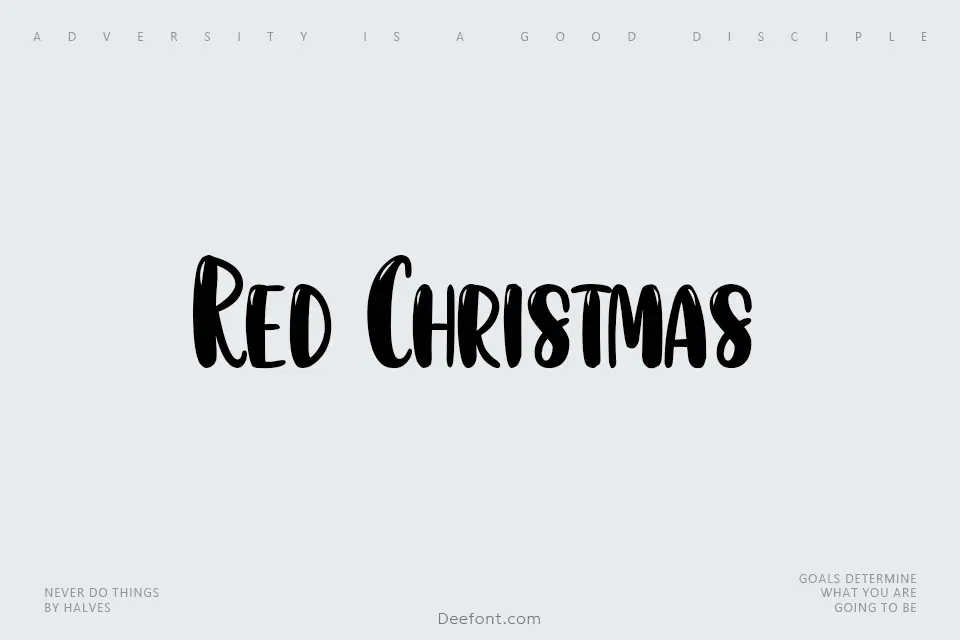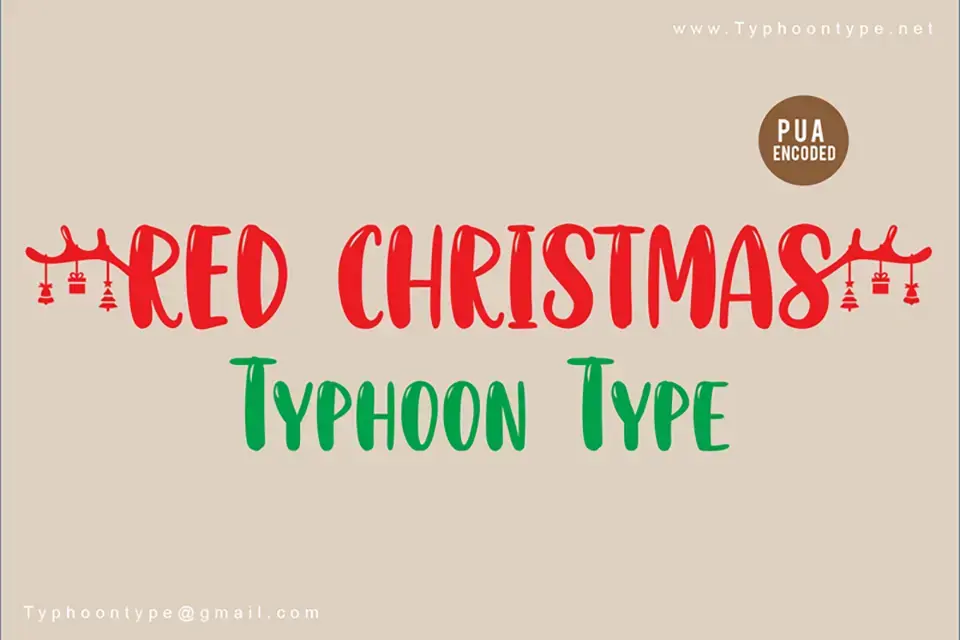
Red Christmas Font
Red Christmas Font is a festive and decorative typeface designed to bring holiday cheer to your creative projects. Featuring distinctive holiday-themed glyphs and charming details, this font excels at creating eye-catching designs for seasonal campaigns, greeting cards, and festive invitations. With 167 unique glyphs including decorative reindeer antlers, Red Christmas Font adds a playful, celebratory touch to any text-based project, making it an ideal choice for Christmas-themed typography and holiday marketing materials.